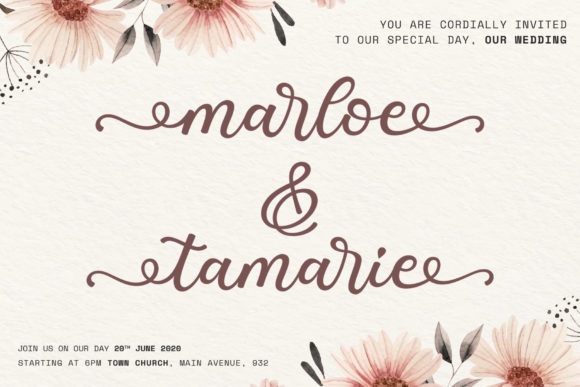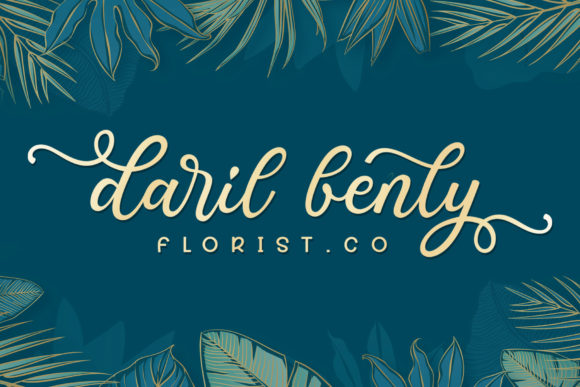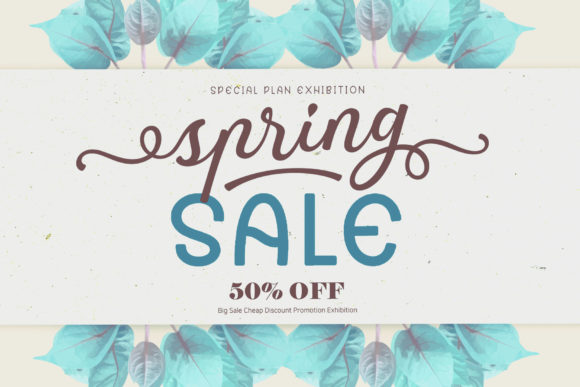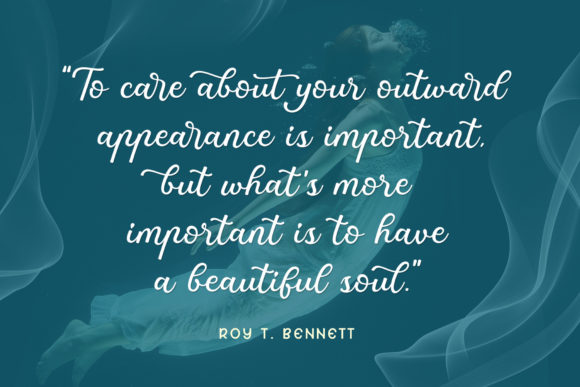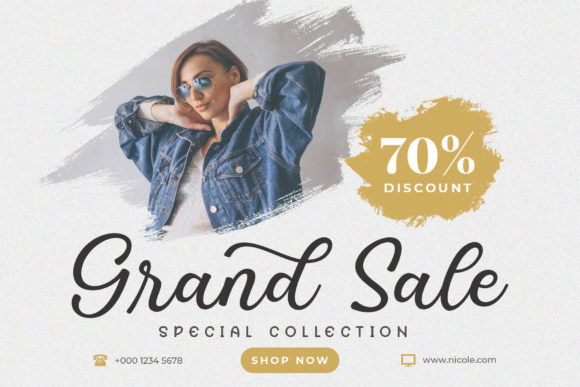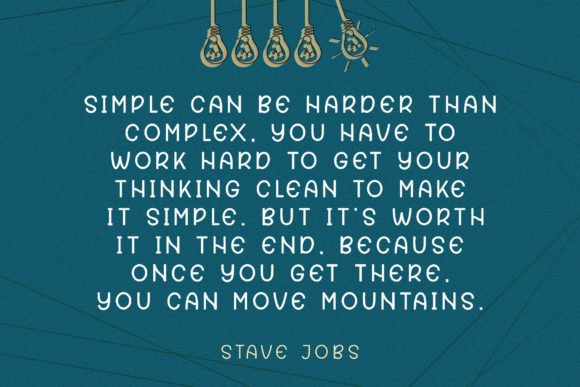
The Great Feeling Duo Font: A Match Made in Heaven for Designers
Have you ever been in the middle of a design project, and suddenly, you’re stuck on finding the perfect font combination? I certainly have! It was a typical Wednesday afternoon when I was working on a branding project for a children’s toy company. My client wanted a playful yet elegant look, and I was determined to deliver. That’s when I stumbled upon the Great Feeling duo font, and it was love at first sight! 💕
The Great Feeling duo is a match made in heaven, with the authenticity of the script perfectly complementing the sans’ style. Combining these two fonts on your next design will give your project a magical and playful feel. This versatility means that this font can be used in a wide variety of applications, from headlines to branding – the only limit is your imagination!
- ✅ The perfect blend of script and sans fonts for a unique look
- ✅ Highly versatile and adaptable to various design projects
- ✅ Easy to read and understand, even in smaller font sizes
- ✅ Beautifully crafted with attention to detail
- ⚠️ Some characters may not work well in very small font sizes
- ⚠️ Limited language support, mainly focused on English and European languages
The Great Feeling duo font was created by a team of designers who wanted to craft a unique and versatile font combination. Inspired by the beauty of handwritten scripts and the cleanliness of sans fonts, they aimed to create a font that would bring a touch of magic to any design project. With a focus on readability and aesthetics, the Great Feeling duo font was born.
Q: What type of projects is the Great Feeling duo font best suited for?
A: The Great Feeling duo font is highly versatile and can be used in a wide range of projects, from branding and headlines to invitations and social media graphics.
Q: Is the Great Feeling duo font suitable for body text?
A: While the Great Feeling Script font is beautiful, it’s best suited for headlines and titles. The Great Feeling Sans font, on the other hand, can be used for body text, but it’s recommended to use a font size of at least 10-12 points for optimal readability.